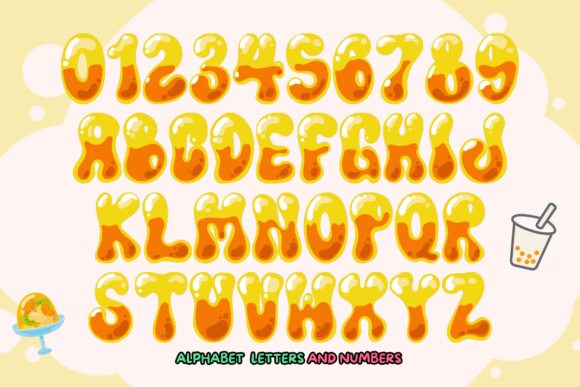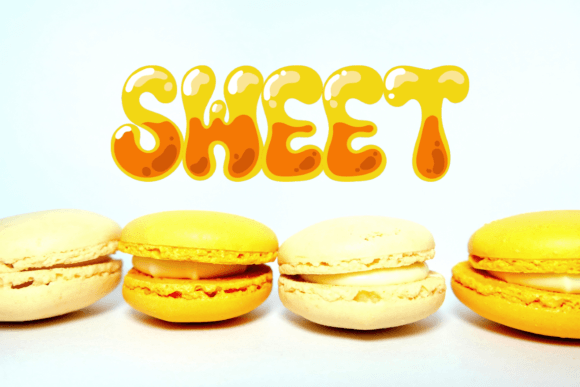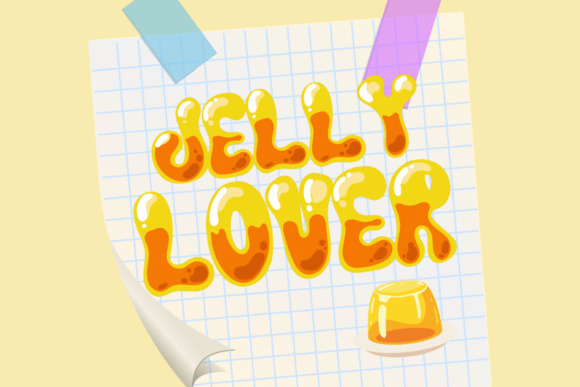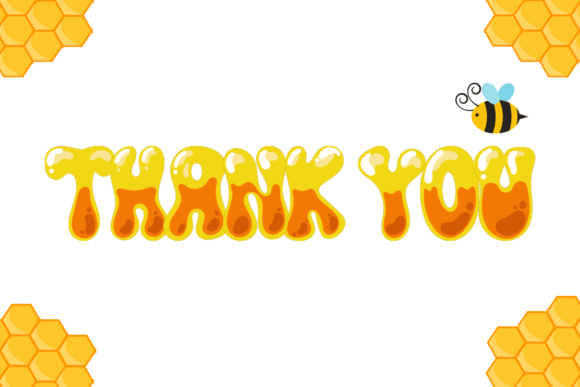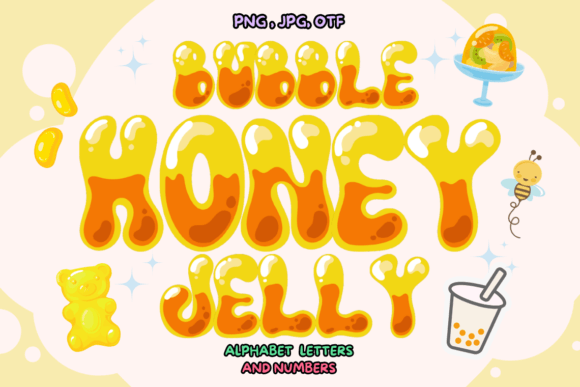
Introducing the Sweetness of Bubble Honey Jelly Color Font
Have you ever been in the middle of a design project, and suddenly, you just can’t seem to find the right font? I recall a recent experience where I was working on a cheerful poster for a children’s event, and my usual go-to fonts just weren’t cutting it. That’s when I stumbled upon the delightful Bubble Honey Jelly Color Font. This charming handwritten typeface has been a game-changer for my designs, and I’m excited to share its sweetness with you! 🍯
I’m absolutely smitten with Bubble Honey Jelly Color Font, and here’s why:
- ✨ Unique and Playful Design: Each letter is crafted with a playful bubble-like design, infusing a sense of whimsy and fun into any project.
- ✅ Warm and Inviting Color: The font’s warm, golden hues evoke the sweetness of honey, making it perfect for designs that require a touch of warmth and coziness.
As the story goes, the creator of Bubble Honey Jelly Color Font was inspired by the simple joys of childhood – playing with bubbles, tasting honey, and laughing with friends. They wanted to capture the whimsy and sweetness of these experiences in a font that would bring a smile to anyone’s face. And, with Bubble Honey Jelly Color Font, I think they’ve succeeded! 😊
| Font Name | Bubble Honey Jelly Font |
In conclusion, Bubble Honey Jelly Color Font is a delightful addition to any design project. With its playful bubble-like design, warm honey-like color, and compatibility with popular design software, it’s the perfect font for adding a touch of whimsy and sweetness to your designs. So go ahead, give it a try, and let the sweetness of Bubble Honey Jelly Color Font elevate your designs! 🍯🎉